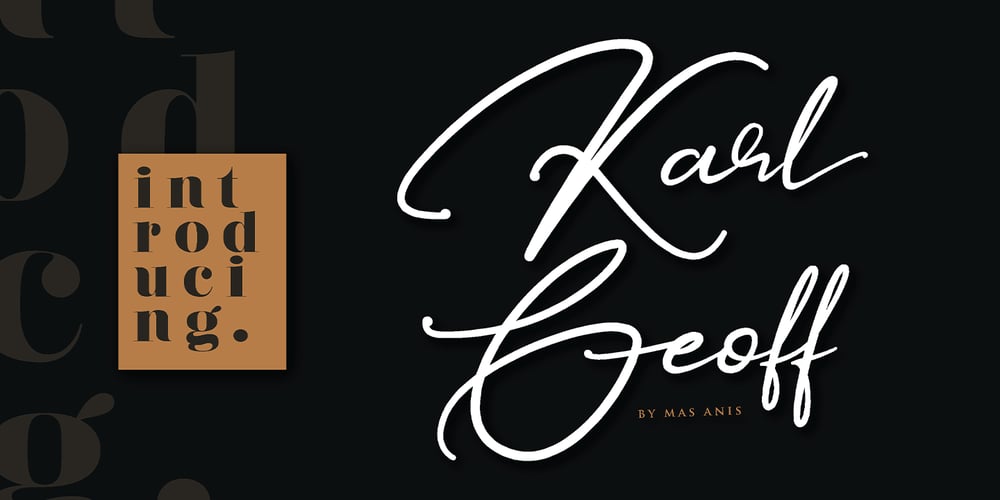
Karl Geoff
Karl Geoff font
Karl Geoff Font Family was designed by Muhammad Naufal Anis and published by Mas Anis Studio. Karl Geoff contains 2 styles and family package options. Karl Geoff is a unique and cool looking handwritten script, ideal for use in projects that need an organic and natural style. This font is great for logotype, signatures, labels, and can add an elegant and classy look to your work.We keep Karl Geoff looks elegant, classy, readable, stylish, eye catching and easy to use.With Modern and Classy style, make this font perfect for project like watermark for photo, wedding, event, invitation, escort card, table number, header menus, editorial, display, logos, slider blog, social media, custom address, stamps, packaging, greeting card, etc.You can easily pair them with sans or serif font from all over the world to make your work more interesting!